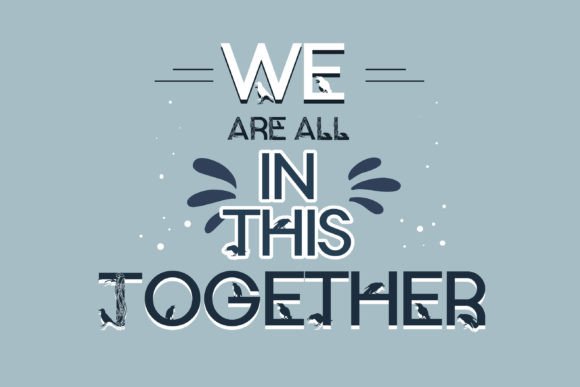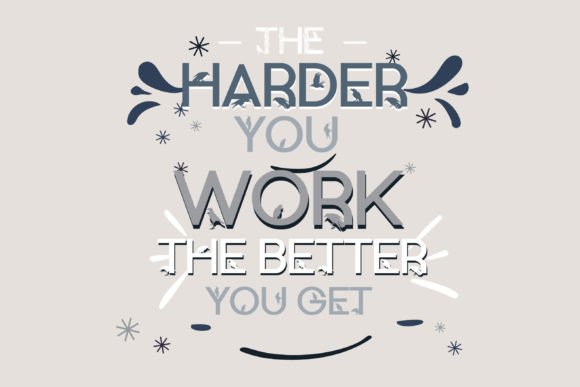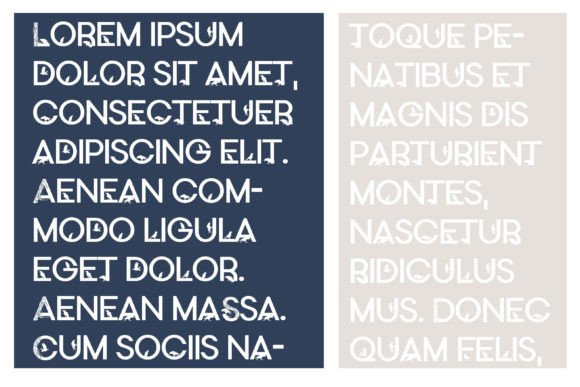
Introduction to Nevermore Font
As a designer, you know the thrill of stumbling upon the perfect font to elevate a creative project. It’s like discovering a hidden treasure that makes all the difference between a good design and a great one. For me, that moment came when I laid eyes on the Nevermore Font – a hand-crafted sans serif masterpiece that features an elaborate uppercase and ravens throughout. I was immediately captivated by its unique charm and the sense of mystery it evokes.
The Nevermore Font is a design resource that stands out from the crowd, offering a high-quality, one-of-a-kind look that’s perfect for designers seeking to add a touch of elegance and sophistication to their work. With its transparent background, it’s easy to integrate into any design project, making it a valuable asset for designers who want to take their creations to the next level. And the best part? It’s available for free download, making it an accessible resource for designers of all levels.
Key Features of Nevermore Font
- Unique, eerie aesthetic, evoking a sense of mystery and suspense, making it perfect for horror-themed projects
- Perfect for use in graphic design, typography, and digital art, adding a touch of elegance and sophistication to any creative project
Honest Review: Nevermore Font
I recently had the opportunity to try out the Nevermore Font, and I must say it’s been a great addition to my design resource collection. The free download was a major plus, making it easy to experiment with this high-quality font in various creative projects.
- The Nevermore Font has a unique, mysterious vibe that’s perfect for projects that need a touch of elegance and sophistication.
- The font’s transparent background makes it easy to use in conjunction with other design elements, allowing for a seamless visual flow.
- The font’s versatility is impressive, making it suitable for a wide range of creative projects, from book covers to website headers.
- The Nevermore Font may not be ideal for projects that require a more playful or casual tone, as it tends to lean towards the mysterious and elegant side.
- The font’s complexity may make it challenging for beginners to use, especially when it comes to customizing and pairing it with other design elements.
Overall, I’m impressed with the Nevermore Font and would highly recommend it to designers looking for a high-quality, versatile font for their creative projects. With its unique style and transparent background, it’s a great addition to any design resource collection.
How to Use Nevermore Font
The Nevermore Font is a high-quality design resource that offers a unique and creative way to add depth and personality to your projects. This font is perfect for those looking for a bold and mysterious aesthetic.
The Nevermore Font is perfect for a variety of creative projects, including:
- Horror-themed designs
- Dark fantasy artwork
- Mysterious typography